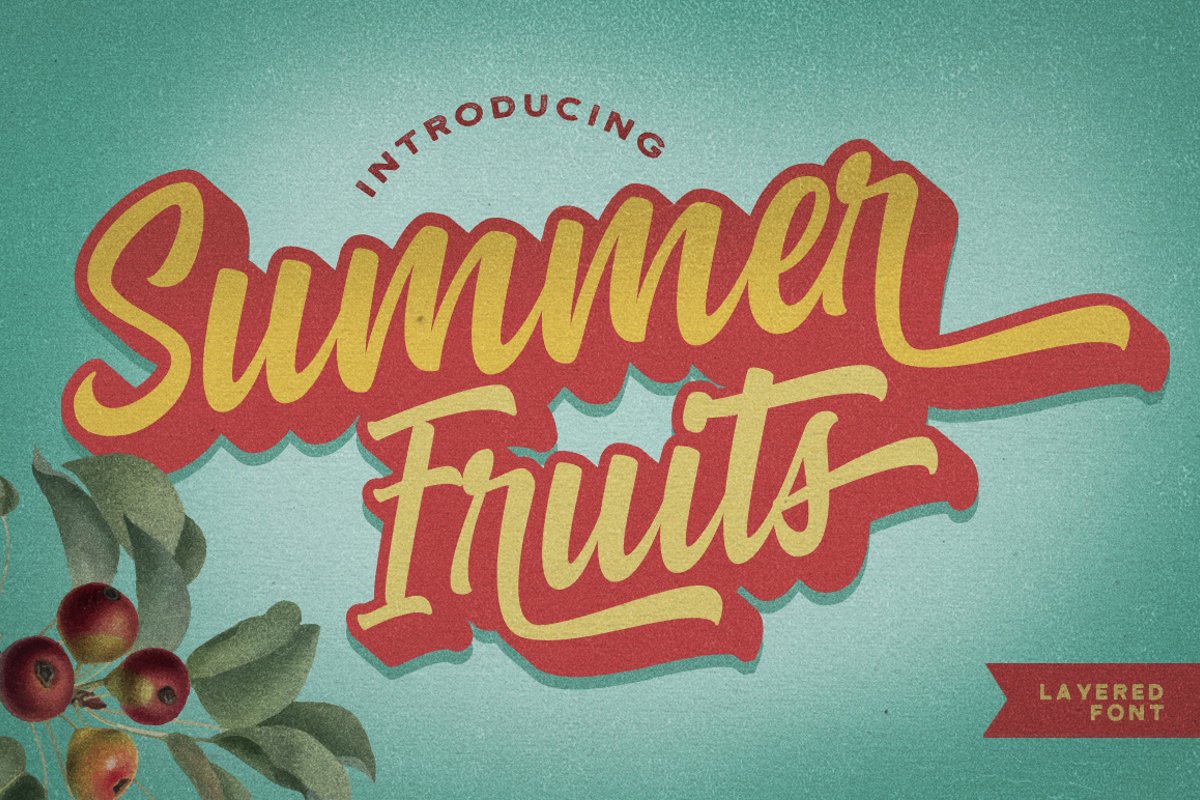
Summer Fruit - Logo Font
summer fruits
Summer Fruits Extrude
Hi there! meet our new font Summer Fruits.
Wanna make a retro style design? No Problem, this font can do it fast!
Summer Fruit is a bold script who comes with extrude effect.
Inspired by retro typography designs style in 70's.
You won't need extra effort for create an extrude effect for this font. It is because we include the extrude with this font. This mean you can saves your time by only adding the extrude font on the back layer.
The Features includes:
- Stylistic Alternates,
- Swashes,
- Ligatures,
- Contextual and Stylistic Set.